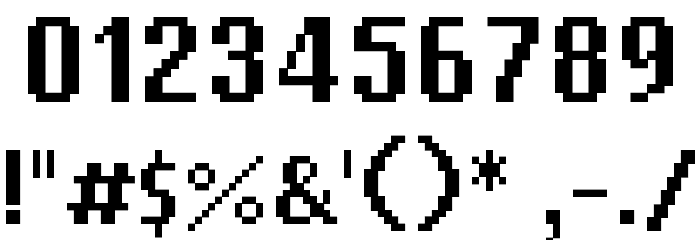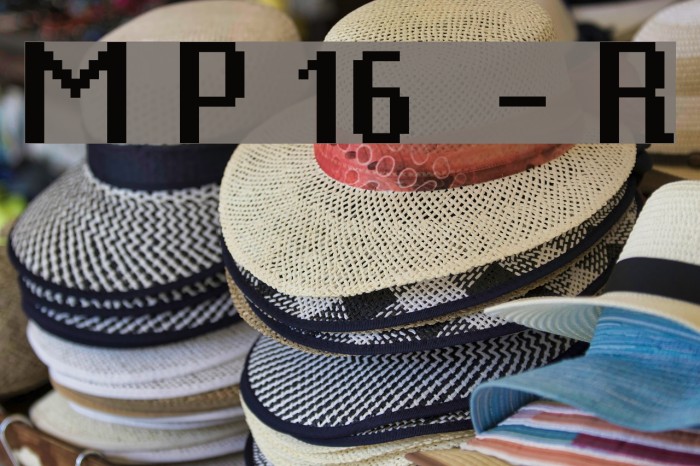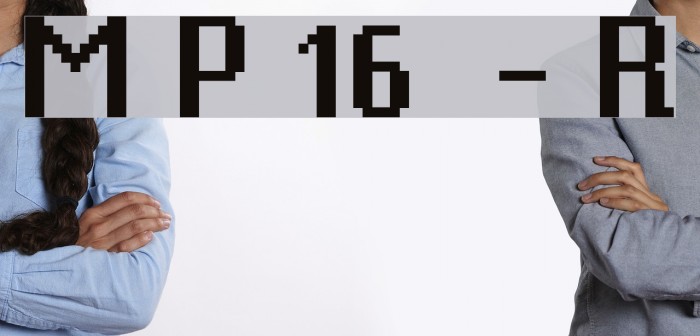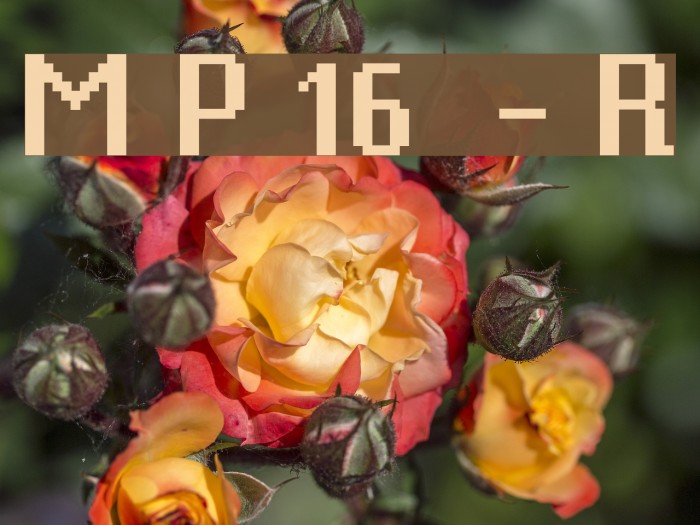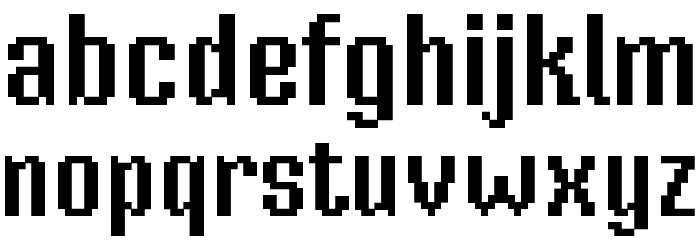
Mister Pixel 16 pt - Regular Font
Mister Pixel 16 pt - Regular Description
This font features a distinct pixelated style, reminiscent of early digital and video game typography. Each character is constructed with a blocky, grid-like appearance, giving it a retro and nostalgic feel. The uppercase and lowercase letters maintain a consistent height and width, contributing to a uniform and cohesive look. The numerals and special characters follow the same pixelated design, ensuring visual harmony across all glyphs. This font is ideal for projects that aim to evoke a sense of vintage digital aesthetics or for use in designs that require a playful, yet structured typeface.
A pixelated, retro-style font with a uniform blocky appearance from Pixel fonts.
- Proposed Projects: Ideal for video game design, retro-themed posters, digital art projects, and any creative work that requires a nostalgic digital touch.
- Overall Style: Vintage
- Use Case: Logos, Headlines, Digital art